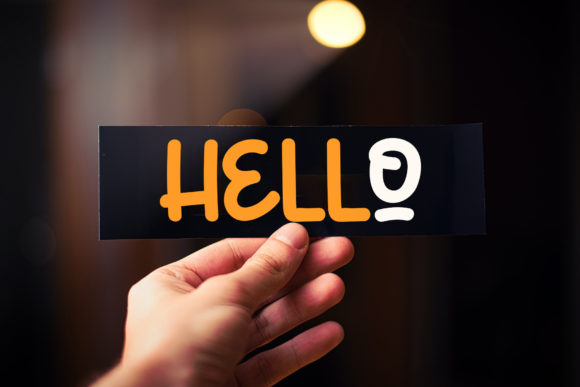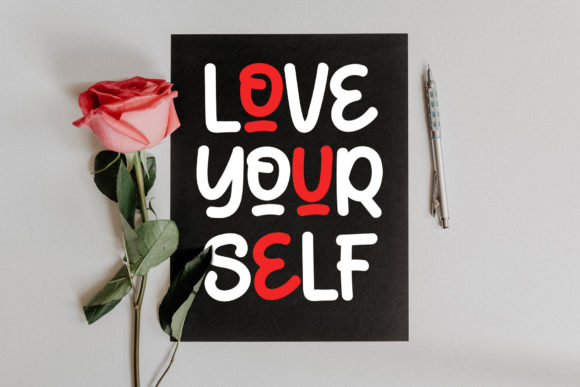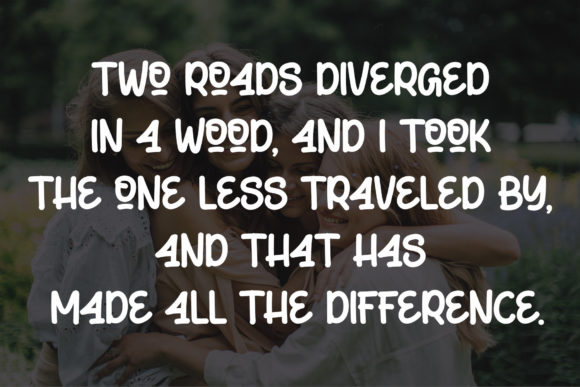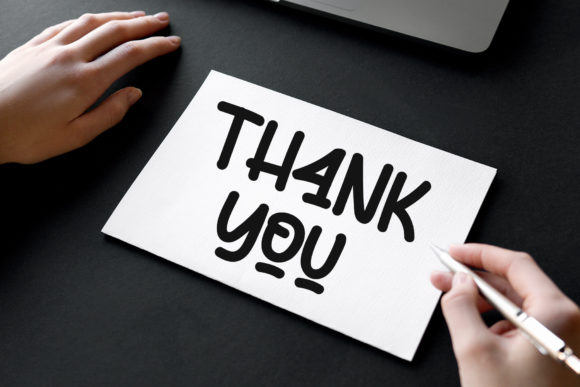
Introduction to Home Stone Font
Home Stone is a lovely and playful handwritten font.
Make your design look fantastic using this awesome display font It is great for any purpose.
Key Features of Home Stone Font